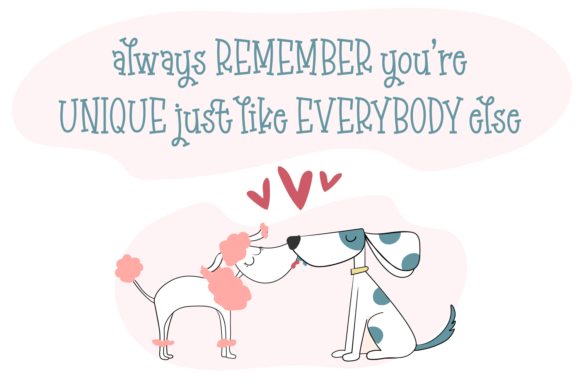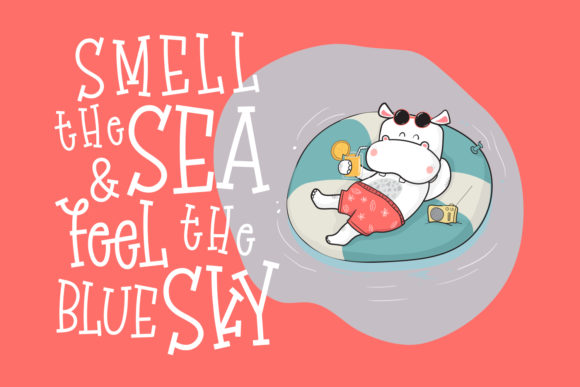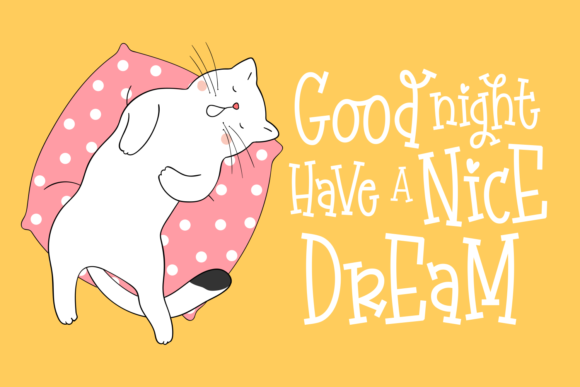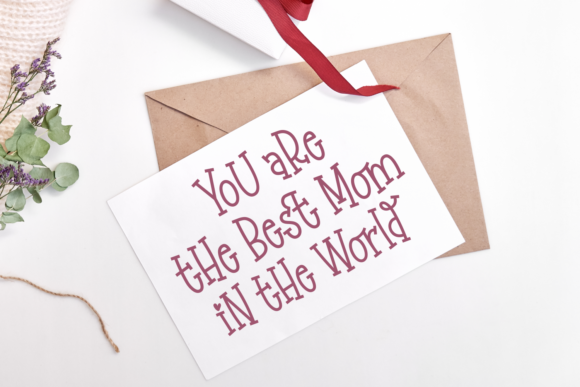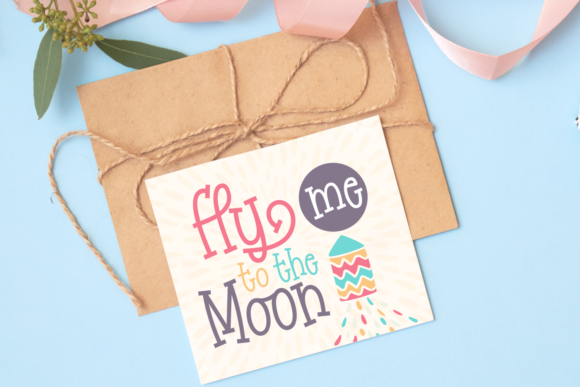
Introducing Creative Mommy Font: A Delicate Handwritten Serif Font with a Whimsical Twist
Are you a designer or crafter looking for a unique and charming font to add a personal touch to your design projects? Look no further than Creative Mommy Font, a beautiful and delicate handwritten serif font with a whimsical twist. In this article, we’ll explore the features and benefits of Creative Mommy Font, and how you can use it to add a bold charm to any design project.
What is Creative Mommy Font?
Creative Mommy Font is a handwritten serif font that exudes elegance and sophistication. Its delicate lines and curves give it a whimsical feel, making it perfect for designs that require a touch of personality. The font is designed to be versatile, making it suitable for a wide range of design projects, from branding and advertising to crafting and DIY projects.
Key Features of Creative Mommy Font
- Delicate Handwritten Serif Font: Creative Mommy Font features delicate lines and curves that give it a handwritten feel.
- Whimsical Twist: The font has a whimsical twist that adds a touch of personality to any design project.
- Versatile: Creative Mommy Font is suitable for a wide range of design projects, from branding and advertising to crafting and DIY projects.
- Easy to Read: The font is easy to read, making it perfect for body text and headings.
Benefits of Using Creative Mommy Font
So, why should you use Creative Mommy Font in your design projects? Here are just a few benefits:
- Adds a Personal Touch: Creative Mommy Font adds a personal touch to any design project, making it perfect for designers and crafters who want to create unique and personalized designs.
- Enhances Brand Identity: The font’s unique and whimsical feel can help enhance brand identity and make your designs stand out from the crowd.
- Perfect for Crafting and DIY Projects: Creative Mommy Font is perfect for crafting and DIY projects, such as making personalized cards, invitations, and gift tags.
How to Use Creative Mommy Font
Using Creative Mommy Font is easy! Here are a few tips to get you started:
- Pair it with Other Fonts: Pair Creative Mommy Font with other fonts to create a unique and visually appealing design.
- Use it for Headings and Titles: Use Creative Mommy Font for headings and titles to add a touch of personality to your designs.
- Experiment with Different Colors: Experiment with different colors to find the perfect combination that complements your design.
Design Project Ideas Using Creative Mommy Font
Here are a few design project ideas that you can use Creative Mommy Font for:
- Personalized Cards and Invitations: Use Creative Mommy Font to create personalized cards and invitations for special occasions.
- Branding and Advertising: Use the font to create unique and eye-catching branding and advertising materials.
- Crafting and DIY Projects: Use Creative Mommy Font to create personalized gift tags, labels, and other crafting and DIY projects.
In conclusion, Creative Mommy Font is a beautiful and delicate handwritten serif font with a whimsical twist that can add a bold charm to any design project. Its versatility, elegance, and whimsy make it perfect for designers and crafters who want to create unique and personalized designs. Whether you’re working on a branding project, crafting and DIY project, or simply want to add a personal touch to your designs, Creative Mommy Font is a great choice.